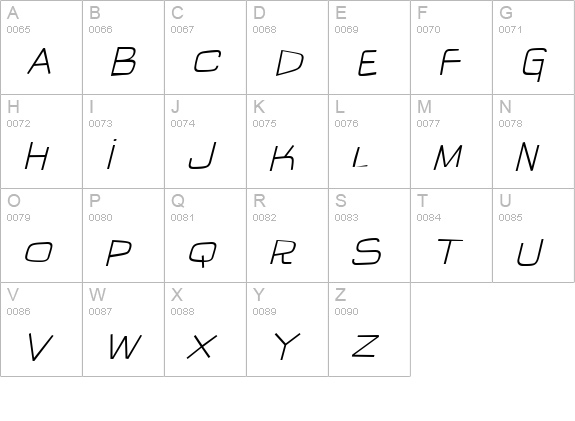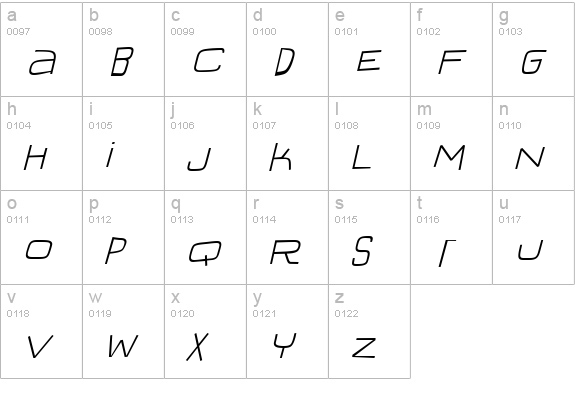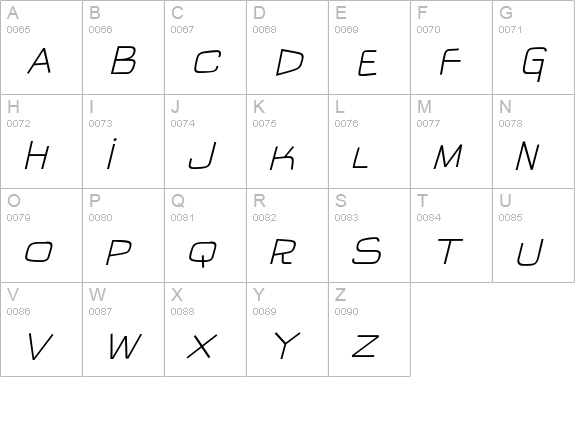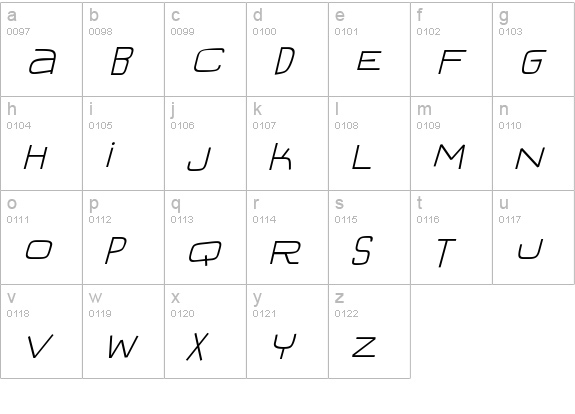
IguanaLover BTN Lt Oblique is a distinctive, italic variant in the IguanaLover typeface family \xE2\x80\x94 well suited to design and typography projects.
IguanaLover BTN Lt Oblique font is a unique and eye-catching typeface that exudes elegance and sophistication. With its slanted and slightly curved letterforms, this font adds a touch of playfulness and charm to any design project. This particular variant of IguanaLover BTN font, the Lt Oblique style, is perfect for adding emphasis and flair to your text. It combines a light weight with an oblique angle, creating a subtle yet impactful effect that captures attention and leaves a lasting impression. But what makes IguanaLover BTN Lt Oblique font even more appealing is that it is available for free! Yes, you read that right. This stunning font can be freely downloaded from FontsMarket.com, making it accessible to designers, creatives, and enthusiasts alike. Whether you're designing a logo, creating eye-catching headlines, or adding a stylish touch to your website, IguanaLover BTN Lt Oblique font is a versatile choice that will elevate your designs to new heights. Its clean and legible letterforms ensure readability, while its unique style adds a touch of personality and sophistication. So why wait? Take advantage of the opportunity to freely download IguanaLover BTN Lt Oblique font from FontsMarket.com and enhance your projects with this stunning typeface. It's time to unleash your creativity and make a bold statement with this remarkable font.